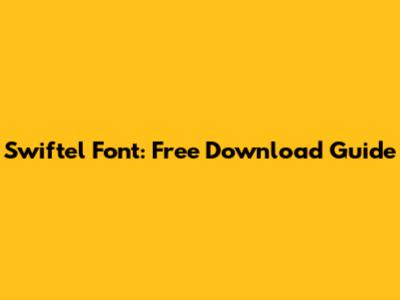
What is Swiftel Font?
Okay, so what exactly is Swiftel font? Swiftel is a modern, sans-serif typeface known for its clean lines and contemporary feel. Its design makes it incredibly versatile, fitting well in various applications, from website headers to branding materials. Swiftel's appeal lies in its simplicity, which ensures readability while still maintaining a distinct visual character. It’s often chosen by designers aiming for a sleek, professional look. Because of its clarity and legibility, Swiftel works wonderfully for both display purposes (like titles and logos) and body text.
The beauty of Swiftel also comes from its adaptability. It’s not just about looking good; it's about being functional across different media. Think about how often fonts need to scale without losing their essence. Swiftel manages to do this gracefully, ensuring your message remains clear whether it's on a large banner or a small mobile screen. This scalability is a crucial factor for designers who need consistency across various platforms and formats. Moreover, its neutral yet stylish appearance allows it to blend seamlessly with different design aesthetics, making it a reliable choice for numerous projects.
When considering Swiftel, it’s also worth noting its character set. A comprehensive character set means more flexibility for multilingual projects and special typographic needs. Designers often look for fonts that support a wide range of characters, including accented letters, punctuation marks, and symbols. This ensures that the font can be used globally without compromising on quality or appearance. Swiftel, with its well-designed character set, provides that assurance, making it a valuable asset in any designer’s toolkit. All these features combined make Swiftel a font worth exploring for anyone serious about design.
1. Montserrat
First up, we have Montserrat. This font is a total workhorse. It's a geometric sans-serif that’s super versatile, working great for everything from headlines to body text. It has a similar clean, modern look to Swiftel, and the best part? It’s available on Google Fonts, so it’s completely free to use, even for commercial projects. Montserrat comes in a bunch of different weights, giving you plenty of flexibility to play around with different styles in your designs. Whether you're designing a website, creating a logo, or putting together a presentation, Montserrat is a solid choice that won't let you down.
2. Lato
Next, let's talk about Lato. Lato is another fantastic sans-serif that’s known for its readability and friendly appearance. Designed by Łukasz Dziedzic, Lato has a semi-rounded detailing that gives it a warm and approachable feel. Like Montserrat, Lato is also available on Google Fonts and is free for both personal and commercial use. Its clarity and legibility make it an excellent option for body text, ensuring your message is easily readable. Lato’s versatility makes it a great alternative to Swiftel, especially if you’re aiming for a design that feels both modern and welcoming. Plus, it pairs well with a variety of other fonts, making it a valuable addition to your font library.
3. Open Sans
And finally, we can't forget Open Sans. This font is a classic for a reason. It’s incredibly readable and has a neutral, clean design that works in pretty much any context. Open Sans is another Google Fonts gem, meaning it’s free to use for anything you want. It’s optimized for print, web, and mobile interfaces, making it a reliable choice for all your design needs. Its simplicity is its strength, ensuring your content is easily accessible and visually appealing. If you need a font that’s versatile, reliable, and free, Open Sans is definitely one to consider. It’s a true workhorse that can handle just about anything you throw at it.